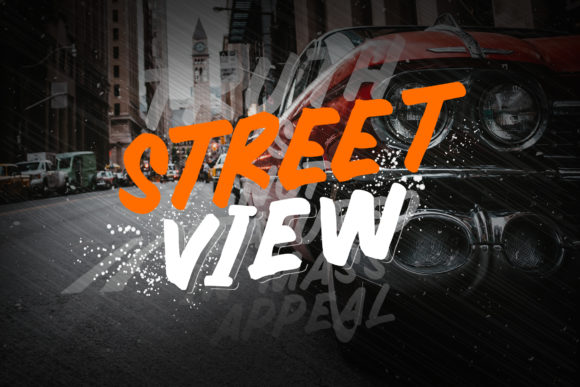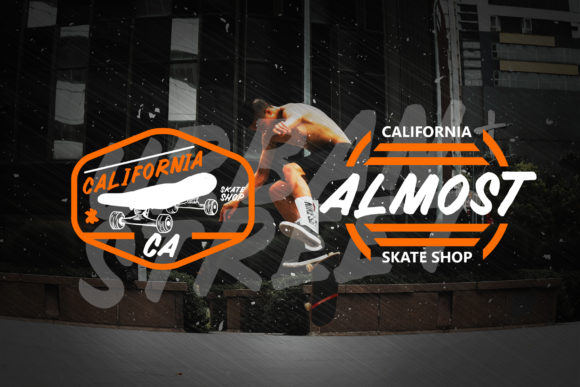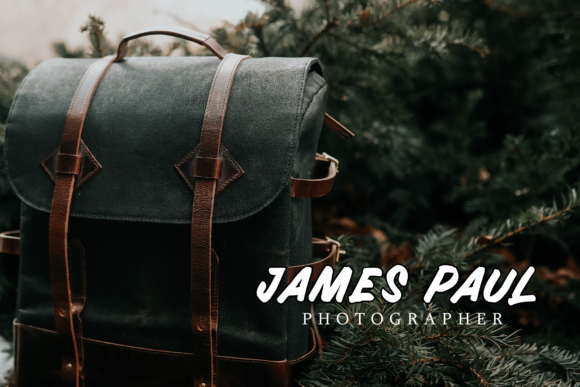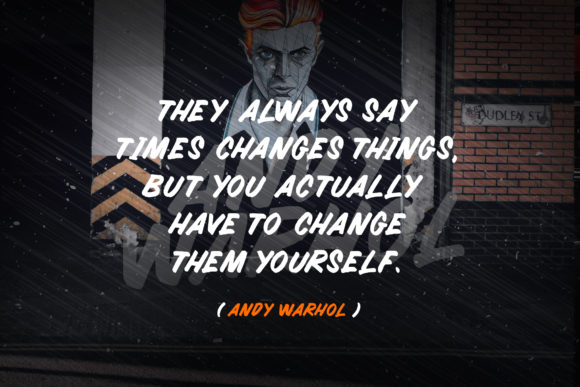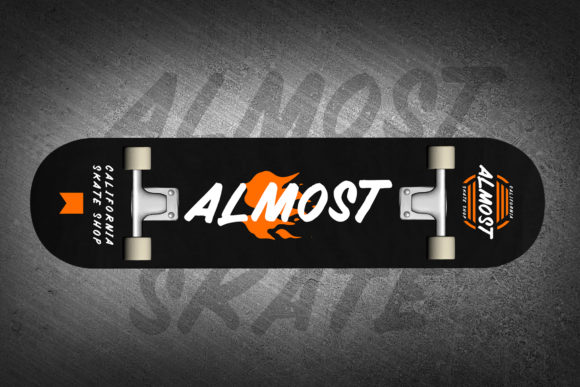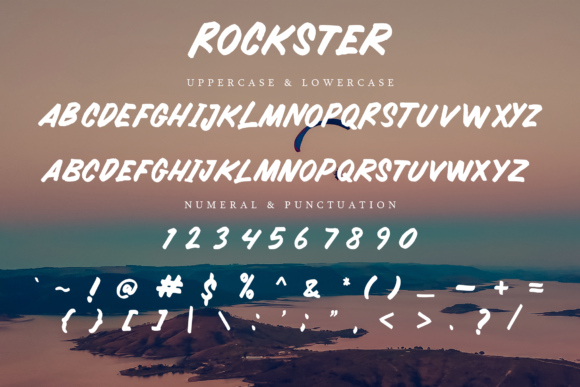
Introduction to Rockster Font
Imagine you’re brainstorming ideas for a new music festival poster, and suddenly, a burst of creative energy hits you. You envision a bold, eye-catching design that screams excitement and energy. That’s where the Rockster Font comes in – a game-changing design resource that’s about to take your project to the next level.
| 👤 Author | Typia Nesia |
As a designer, you’re always on the lookout for high-quality fonts that can elevate your creative projects. The Rockster Font is an all-caps display font that’s perfect for advertising, product packaging, and more. Its strong and casual vibe makes it an ideal choice for designers who want to add a touch of sophistication to their work. Plus, with a transparent background, you can easily integrate it into any design without distractions.
Key Features of Rockster Font
- High-quality font design suitable for creative projects and design resources.
- Unique blend of modern and edgy design elements, perfect for making a statement in any creative project.
Honest Review: Rockster Font
I recently had the chance to work with the Rockster Font for a creative project, and I have to say, it was a pleasant experience. This font is a great design resource for those who want a high-quality font for their next project. The Rockster Font is a free download, which is always a bonus, and it’s perfect for anyone looking to add some edge to their design.
Here are some of the things that worked well for me:
- ✨ Unique style: The Rockster Font has a very distinct and bold style that makes it perfect for creative projects that need a bit of flair.
- ✨ High-quality design: The font is well-designed and looks great on both light and dark backgrounds.
- ✨ Easy to use: I had no issues with the font and it worked seamlessly with my design software.
- ⚠️ Limited font sizes: While the font looks great in certain sizes, it doesn’t scale well for larger font sizes.
- ⚠️ No transparent background: This might be a problem for designers who need to use the font on a transparent background.
Overall, I’m impressed with the Rockster Font and would recommend it to anyone looking for a unique and high-quality font for their creative project.
Common Use Cases for the Rockster Font
The Rockster Font is ideal for creative projects, including posters, flyers, business cards, and presentations. Its unique design makes it an excellent choice for music-related projects, such as concert tickets and promotional materials. The font’s transparent background also makes it easy to use in digital design projects, such as website headers and social media graphics.